How to design Eid greetings with Islamic fonts
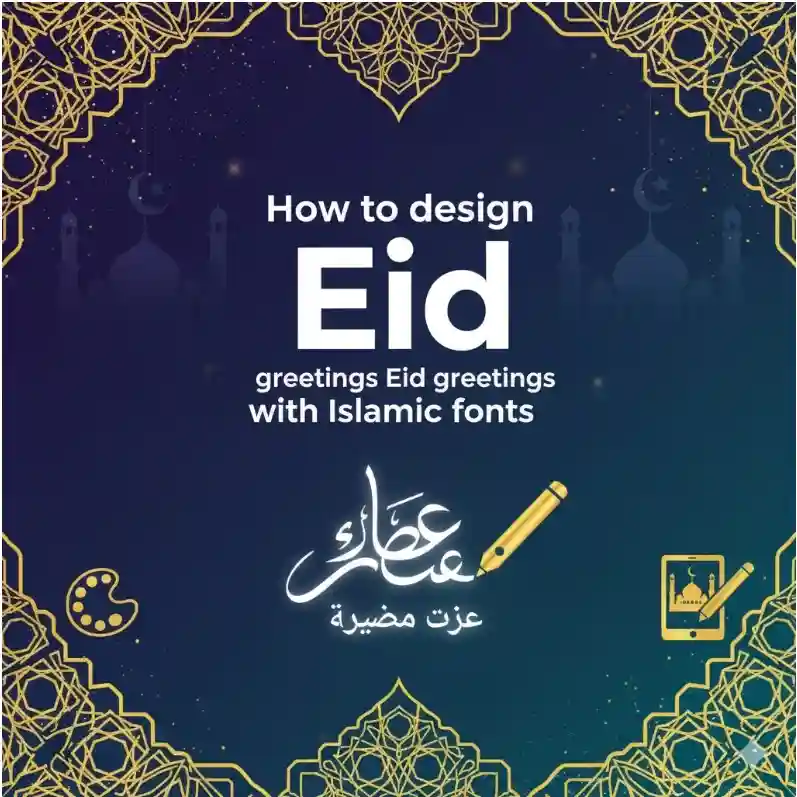
1. Introduction
Eid al-Fitr and Eid al-Adha are among the most joyous celebrations in the Muslim world. It’s a time for family, gratitude, and creativity — and what better way to express those feelings than through beautiful Eid greeting designs?
Whether you’re crafting a printed card or a digital post, your choice of Islamic font can transform an ordinary message into a stunning visual experience. In this article, you’ll learn how to design Eid greetings with Islamic fonts — step by step — while exploring elegant font inspirations from NoahType.
2. Why Fonts Matter in Eid Greetings
Fonts are the soul of design. They set the tone and emotion of your message even before a single word is read.
A script font conveys warmth and elegance, while a serif display adds structure and grandeur.
In Eid greetings, fonts are more than aesthetic tools — they represent culture, beauty, and spiritual celebration. Choosing fonts that echo Islamic artistry helps you capture that perfect blend of faith and festivity.
3. Understanding the Islamic Font Aesthetic
Islamic fonts are inspired by Arabic calligraphy and geometric art. But that doesn’t mean they’re limited to Arabic characters — many Latin-based fonts now carry that same flowing, ornate, and spiritual essence.
There are three broad categories of fonts suitable for Eid designs:
- Calligraphic Fonts: With fluid curves, ideal for “Eid Mubarak” titles.
- Decorative Serif Fonts: Adding structure and elegance to invitations.
- Signature or Script Fonts: Great for personal messages and handwritten touches.
For example, NoahType’s Randall Henry Signature Font offers a modern calligraphy look that works beautifully for soft, spiritual greetings.
4. Step-by-Step: How to Design Eid Greetings with Islamic Fonts
4.1 Choose the Right Theme and Colors
Before opening your design software, define your concept. Are you designing for a family greeting card, an Instagram post, or a corporate message?
Color is your emotional foundation — go for emerald green, gold, navy blue, or beige to reflect traditional Islamic tones. For modern looks, try pastel gradients or minimal white backgrounds accented with gold lines.
4.2 Select the Perfect Islamic Font
This is where your design comes alive. Choose fonts that balance legibility and emotion.
Here are some stellar options from NoahType:
- ✨ Randall Henry Signature Font — adds a graceful, handwritten touch to “Eid Mubarak” headlines.
- 🕌 Royal Letter Serif Display Font — bold and decorative, perfect for banners or invitation headings.
- 🌙 Proudest Boast Serif Display Font — elegant serif style for luxury Eid greeting cards.
You can pair a script font for your greeting line with a serif for body text — this combination creates a timeless, balanced look.
4.3 Combine Typography with Islamic Patterns
Complement your typography with subtle Islamic patterns — geometric shapes, arabesque lines, or crescent moon icons.
Make sure the pattern supports your message rather than overpowering the text.
4.4 Add Your Eid Message with Style
Now comes the heart of your design: the message. Keep it sincere and celebratory:
- “Eid Mubarak”
- “May Allah bless you with peace and joy”
- “Selamat Hari Raya”
Use Randall Henry Signature Font for a handwritten, emotional look, and Royal Letter Serif Display Font for bold emphasis on the main greeting.
4.5 Export and Share Your Design
Once your design is ready, export it properly:
- For print → 300 DPI resolution, CMYK color.
- For web → JPEG or PNG in RGB, with optimized size for loading speed.
If posting on social media, maintain consistent branding — reuse your chosen fonts and color palette for future Eid content.
5. Best Islamic Fonts for Eid Greeting Cards (Recommended by NoahType)
Here’s a curated list of NoahType fonts perfect for Eid greetings:
- Randall Henry Signature Font – organic strokes that mimic elegant handwriting.
- Royal Letter Serif Display Font – stately and luxurious, ideal for headings.
- Proudest Boast Serif Display Font – refined and balanced, suitable for both print and digital layouts.
All fonts are available for commercial use and can seamlessly fit into branding, packaging, or festive campaigns.
6. Final Tips for Professional Designers
- Balance decorative and readable fonts. Don’t let style reduce legibility.
- Use contrast. Pair ornate scripts with simple backgrounds.
- Stay culturally authentic. Avoid clichés; focus on patterns and hues rooted in Islamic art.
- Optimize for digital sharing. Ensure text clarity on mobile and desktop screens.
- Test before publishing. Print a sample or preview on multiple devices to confirm readability.
Following these principles ensures your Eid greetings remain visually stunning, culturally resonant, and professionally crafted.